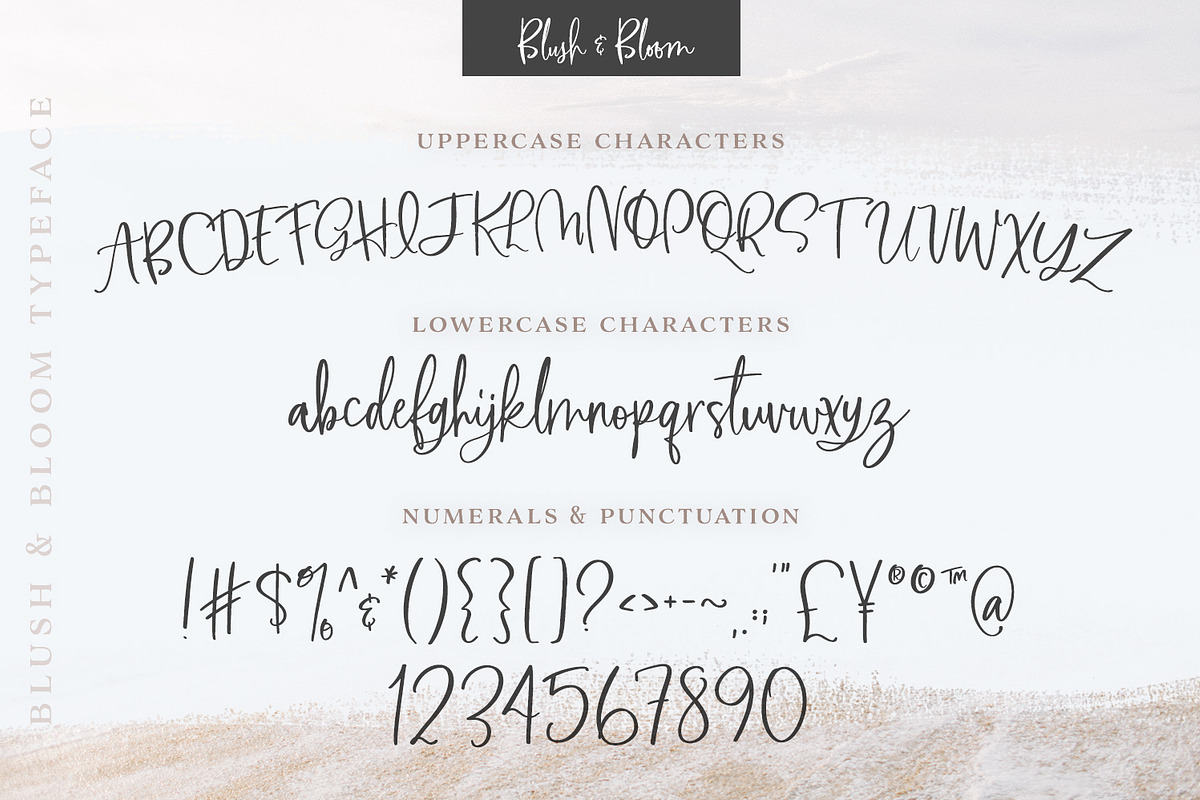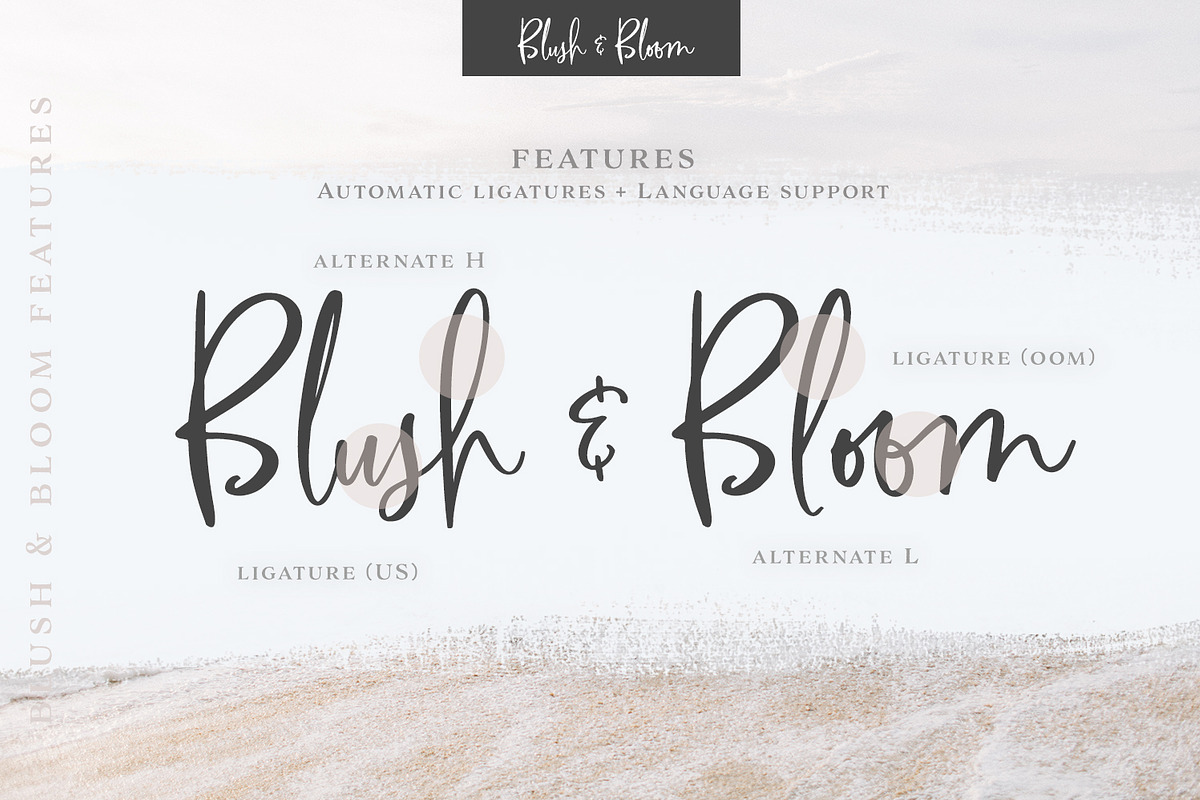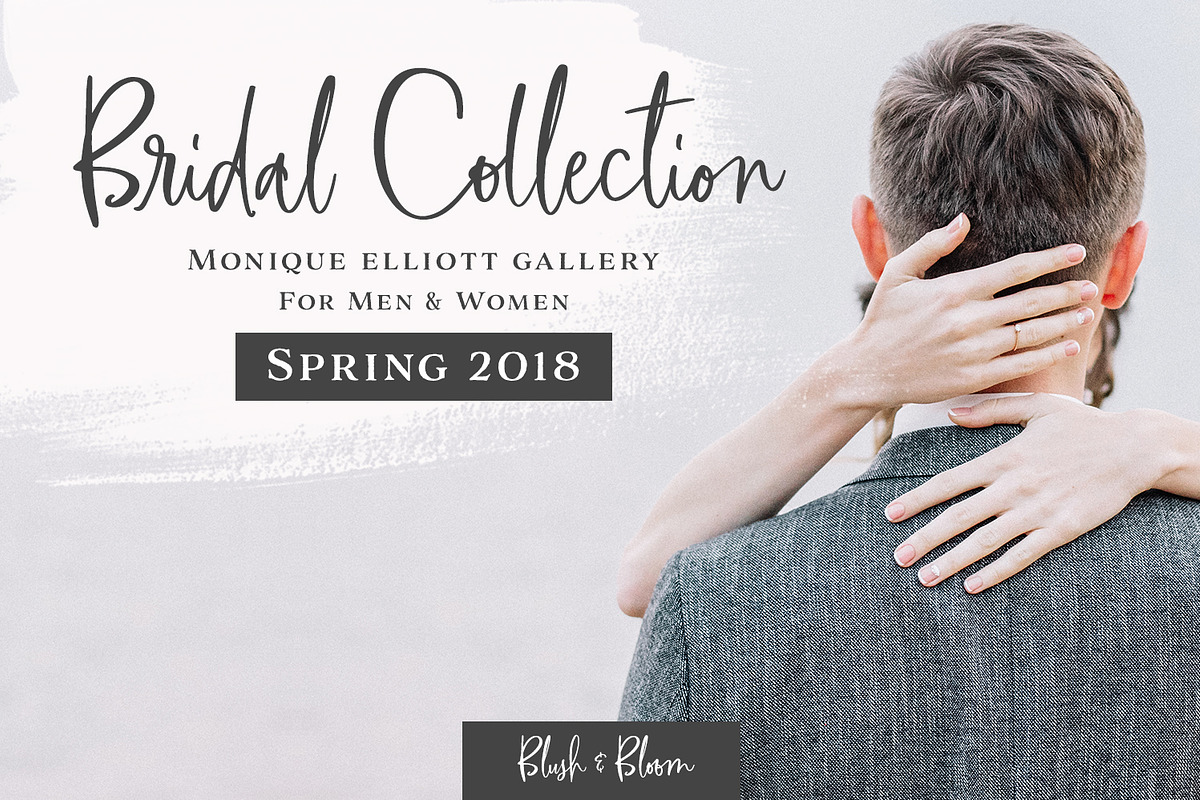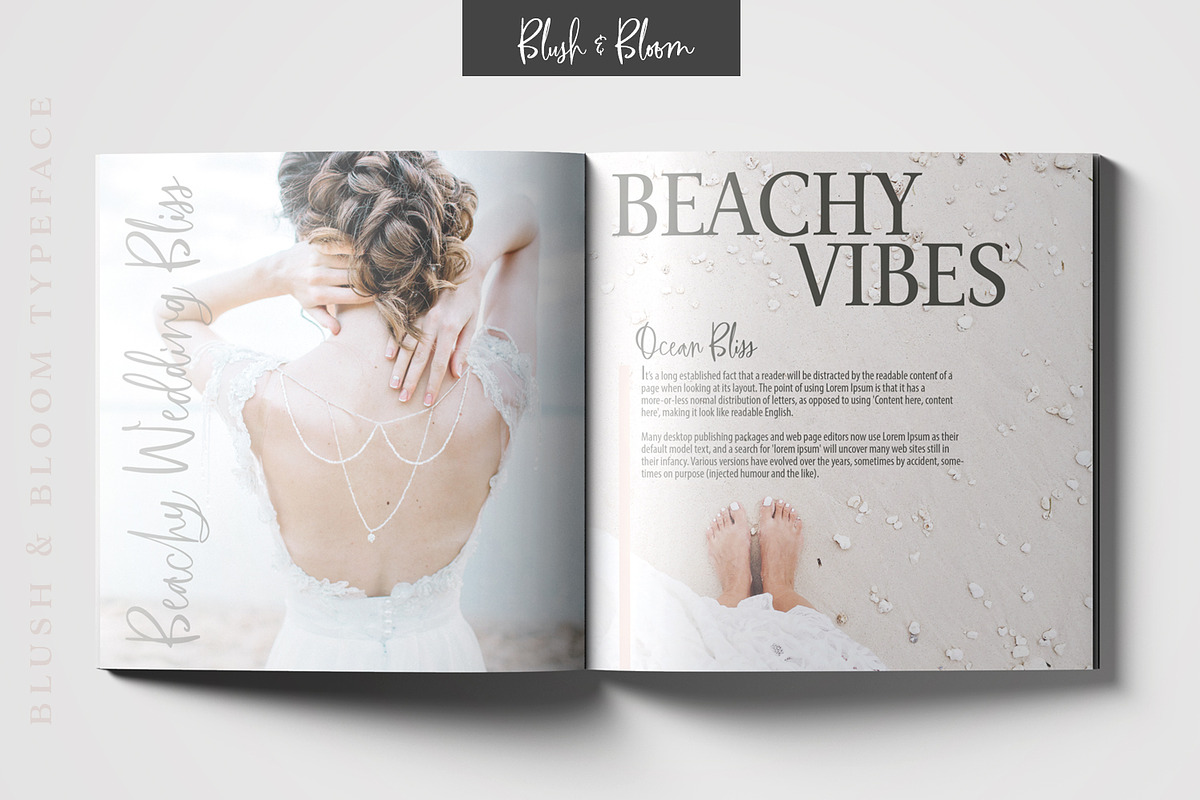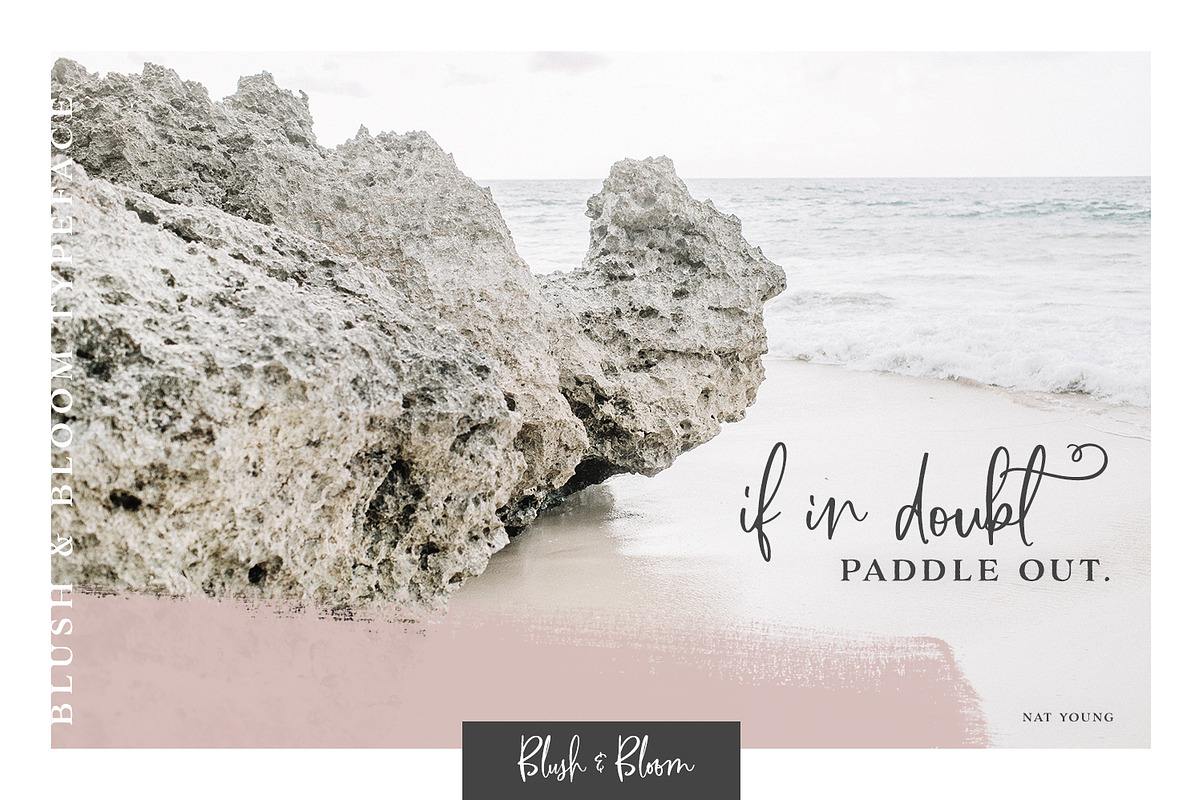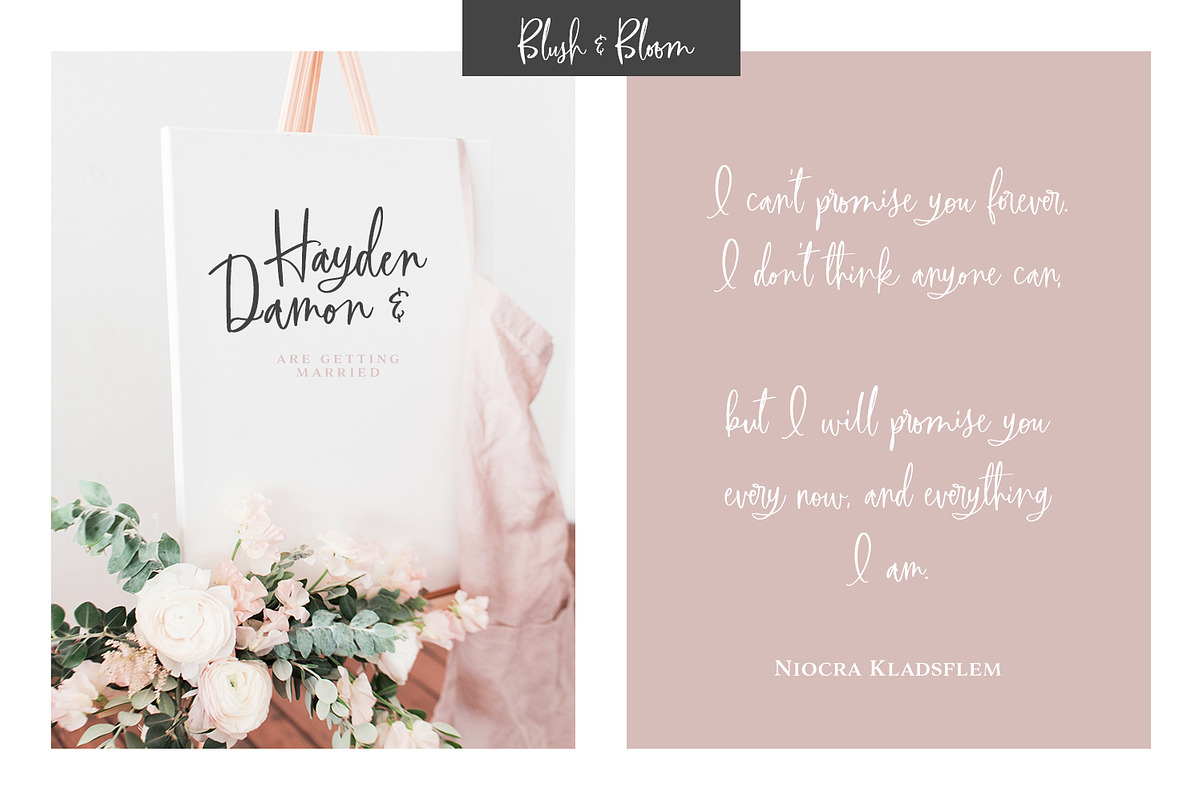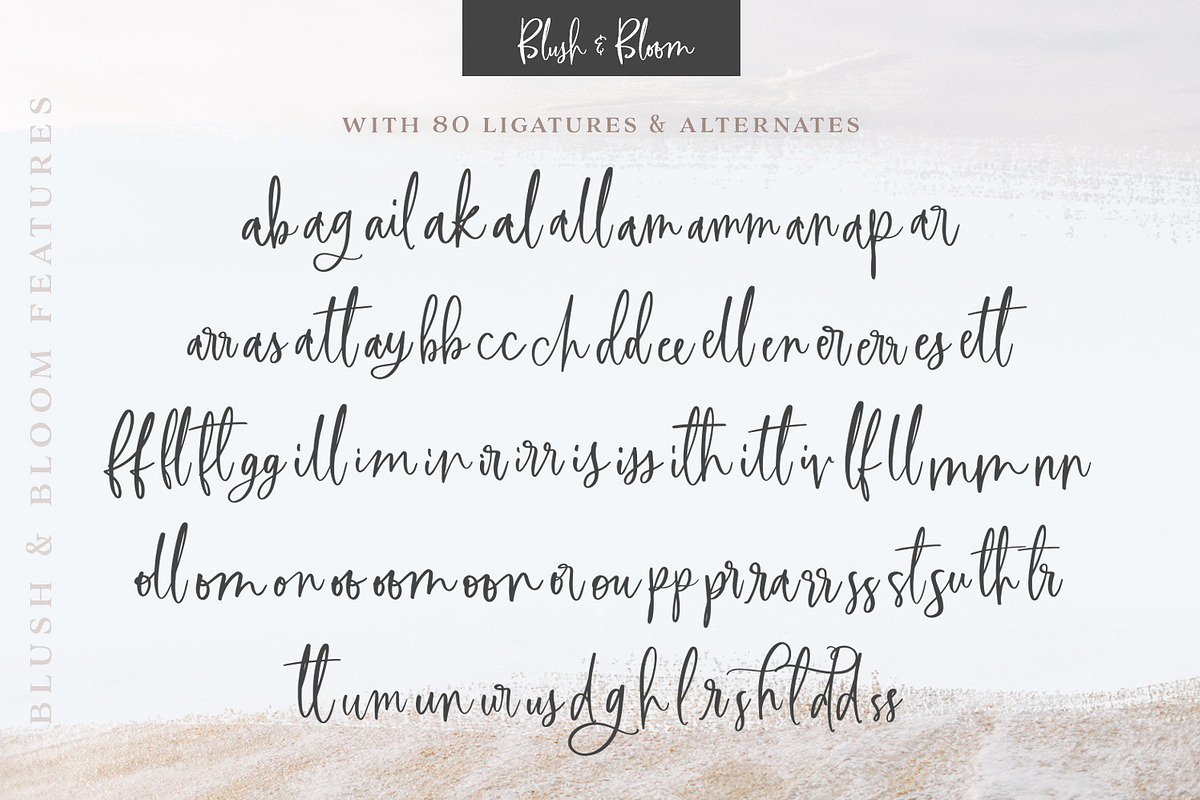
Blush & Bloom Signature Type
Introducing Blush & Bloom, a smooth, elegant typeface with 80 ligatures and alternates for an authentic hand-written feel. Blush & Bloom comes in both, Regular and Slanted, and looks gorgeous on business cards, envelopes, logos, signage, greeting cards, wedding materials, packaging and more! Pair it with a simple Sans Serif for a polished, contemporary style.
- Blush & Bloom Regular (OTF & TTF) - A smooth, elegant handwriting script with 80 unique alternates and ligatures.
- Includes Western European Language Support: AÀÁÂÃÄÅCÇDÐEÈÉÊËIÌÍÎÏNÑOØÒÓÔÕÖUÙÜÚÛWẂŴẄẀYÝŸỲŸÆŒßÞþ